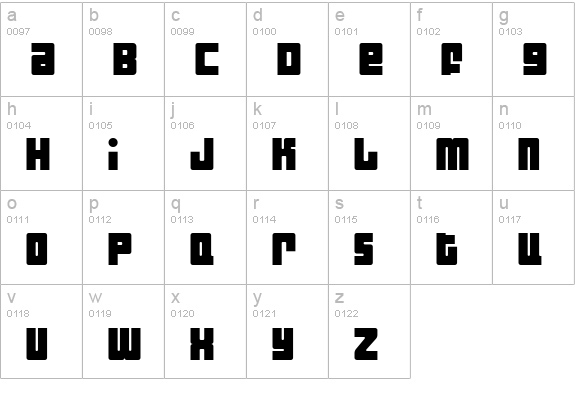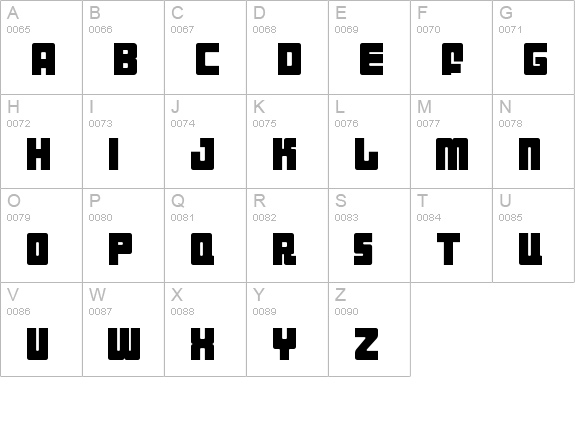
Introducing Industrial Decapitalist, a bold and powerful font that combines the aesthetics of industrial design with a modern twist. Designed to make a statement, this font is perfect for projects that require a strong and impactful presence. Industrial Decapitalist features clean lines and sharp edges, giving it a distinct and robust appearance. Its uppercase letters exude strength and authority, while the lowercase letters add a touch of sophistication and versatility. Whether used in headlines, logos, or branding materials, this font will command attention and leave a lasting impression. But what truly sets Industrial Decapitalist apart is its commitment to accessibility and inclusivity. We believe that creativity should be free, and that is why Industrial Decapitalist is freely available to download at FontsMarket.com. We want to empower designers, artists, and creators of all kinds to express themselves without any barriers or limitations. With its wide range of characters, including numerals, punctuation marks, and special symbols, Industrial Decapitalist offers endless possibilities for your creative endeavors. Its seamless compatibility with various design software makes it effortless to incorporate into your projects. Download Industrial Decapitalist today from FontsMarket.com and unleash your creativity. Let your designs speak volumes with this font that embodies the spirit of innovation, accessibility, and artistic freedom.